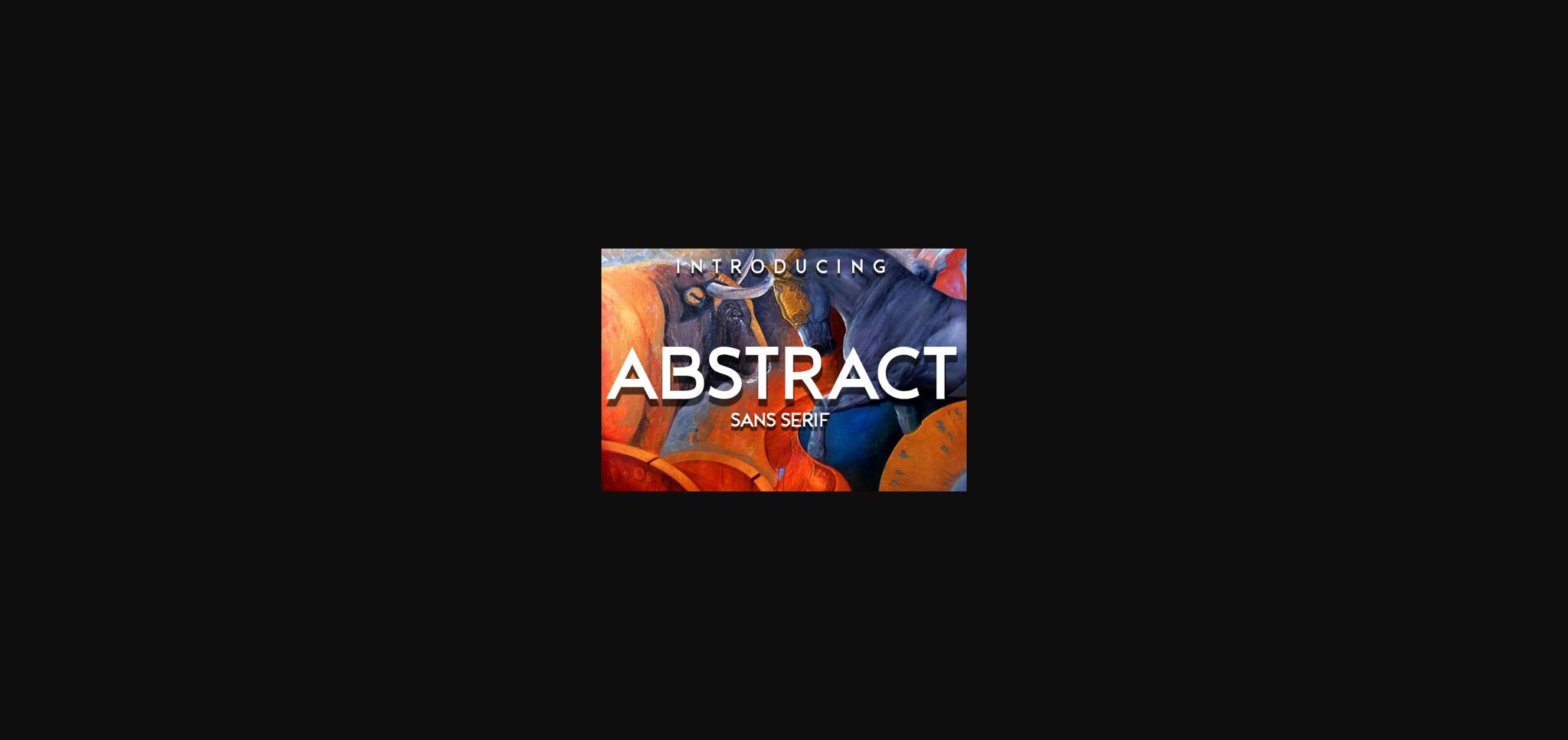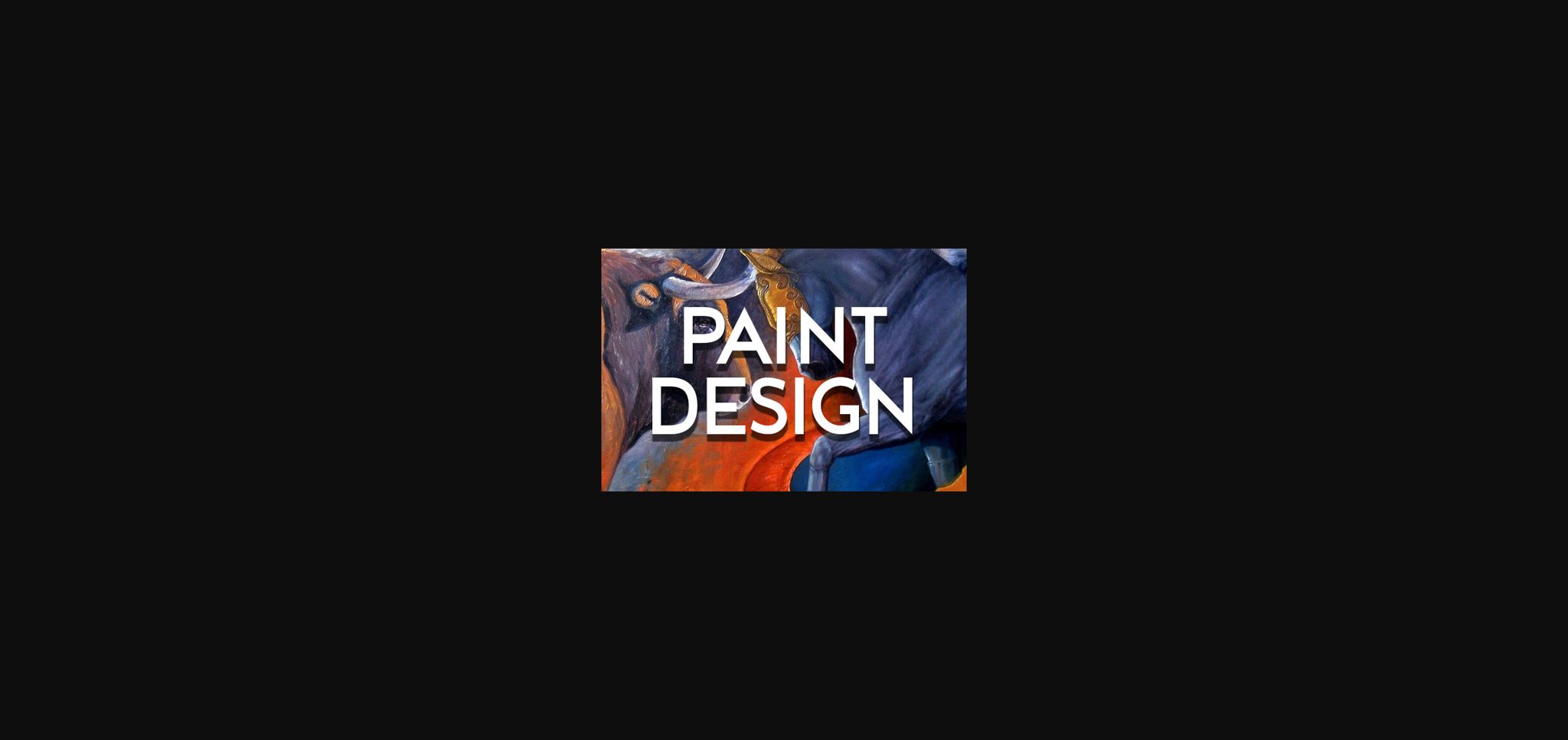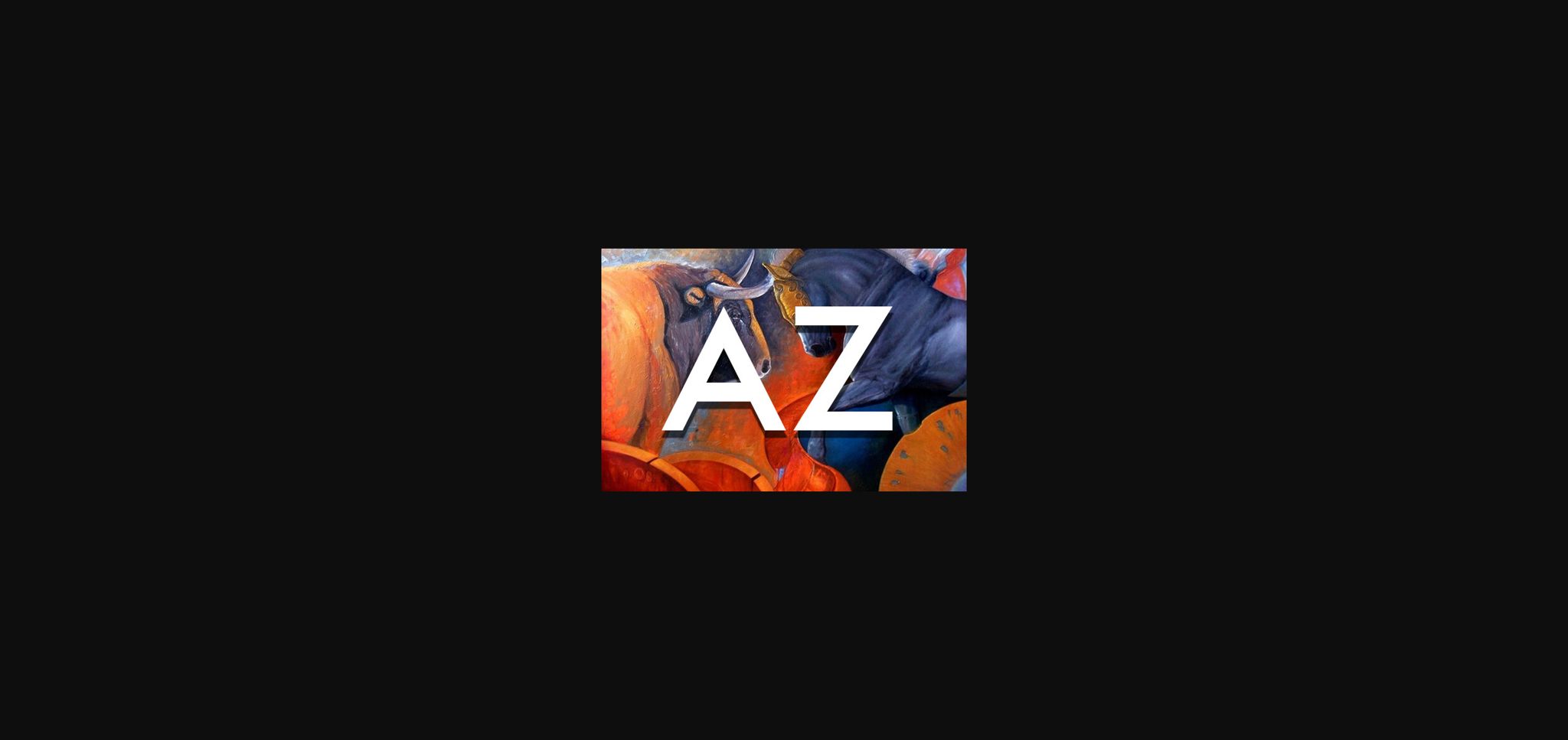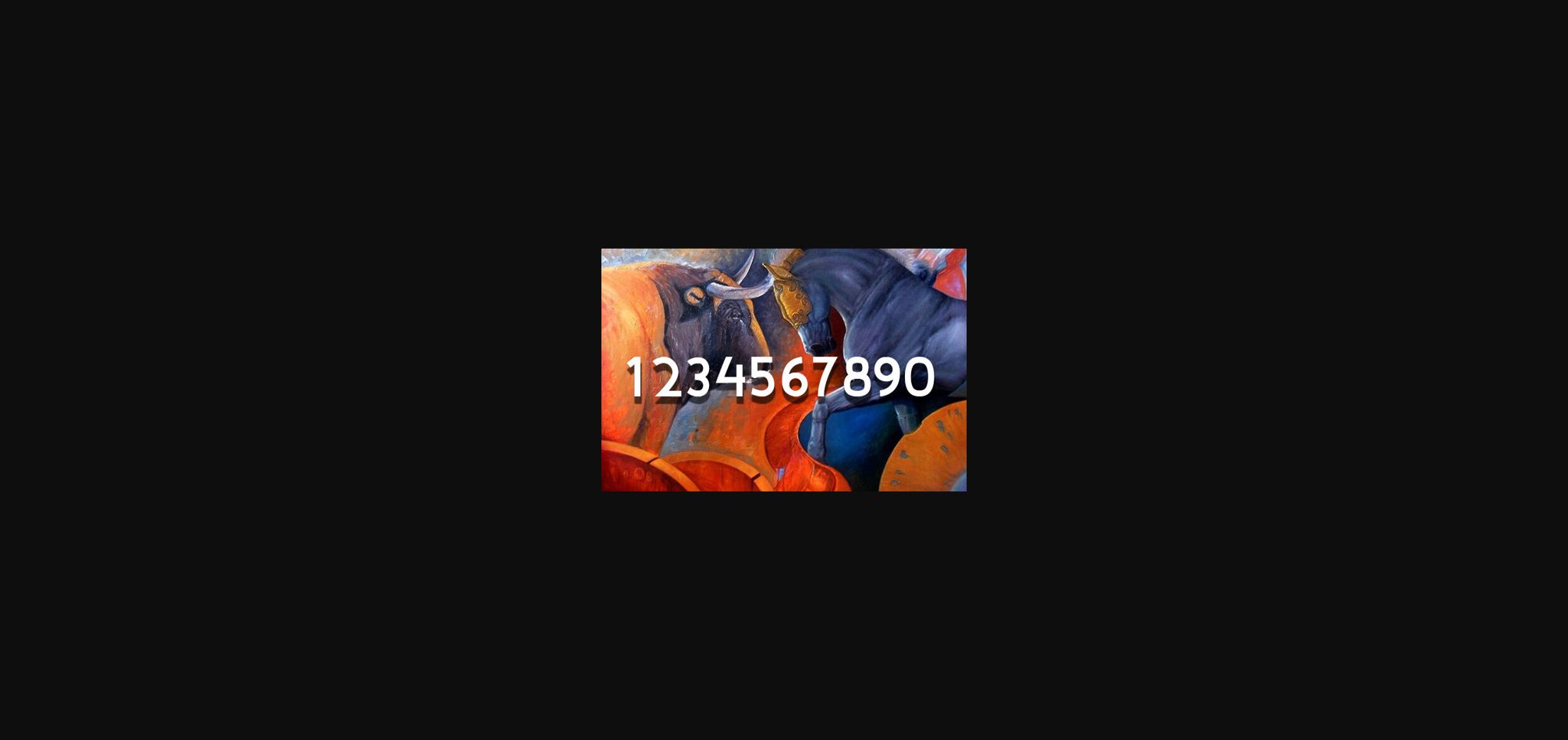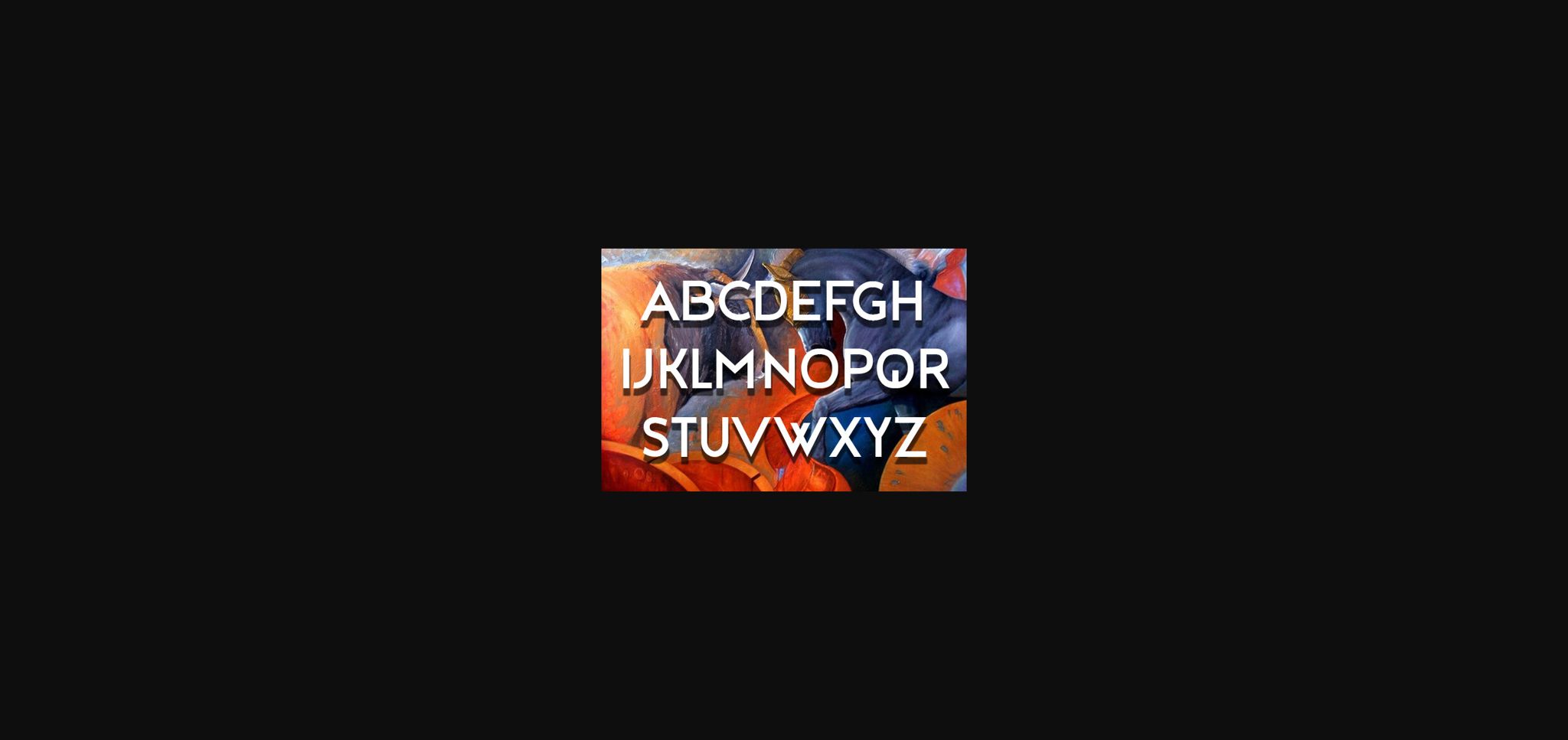
HomeSans Serif FontsAbstract Font Sans Serif Fonts Abstract Font FacebookXPinterestWhatsApp 1 of 7 ... Abstract Font Poster 2... Abstract Font Poster 3... Abstract Font Poster 4... Abstract Font Poster 5... Abstract Font Poster 6... Abstract Font Poster 7... About Abstract Font Abstract is awesome Sans Serif font that wil look awesome on any of Your designs. Use this font for posters, flyers and t-shirts. DOWNLOAD NOW People also explored Relitha Patricia Font Barelyn Script Sedona Font Golden Palace Font Rushtian Font Croper Font Birthday Doodles Cuby Fox Font Marjolaine Font 312 0 TagsAbstract Font Previous articleAdeline FontNext articleGerrova Font LEAVE A REPLY Cancel reply Comment: Please enter your comment! Name:* Please enter your name here Email:* You have entered an incorrect email address! Please enter your email address here Website: Save my name, email, and website in this browser for the next time I comment. Personal Use Free Velasco Personal Use Free Read more about this font Rolling Door Personal Use Free Read more about this font Sellena Brush Font Personal Use Free Read more about this font Single Sleeve Personal Use Free Read more about this font BLOG Transform Your Website: Elevate Your Typography with 7 Best Web Font Generators Are you ready to transform your website's typography from ordinary to extraordinary? Great! Today, we're diving into the world of web font generators, which... Top 7 Google Fonts Alternatives for Faster and Privacy-Friendly Web Design (2025) Exploring Font Trends To increase your work productivity, choose the most readable fonts.